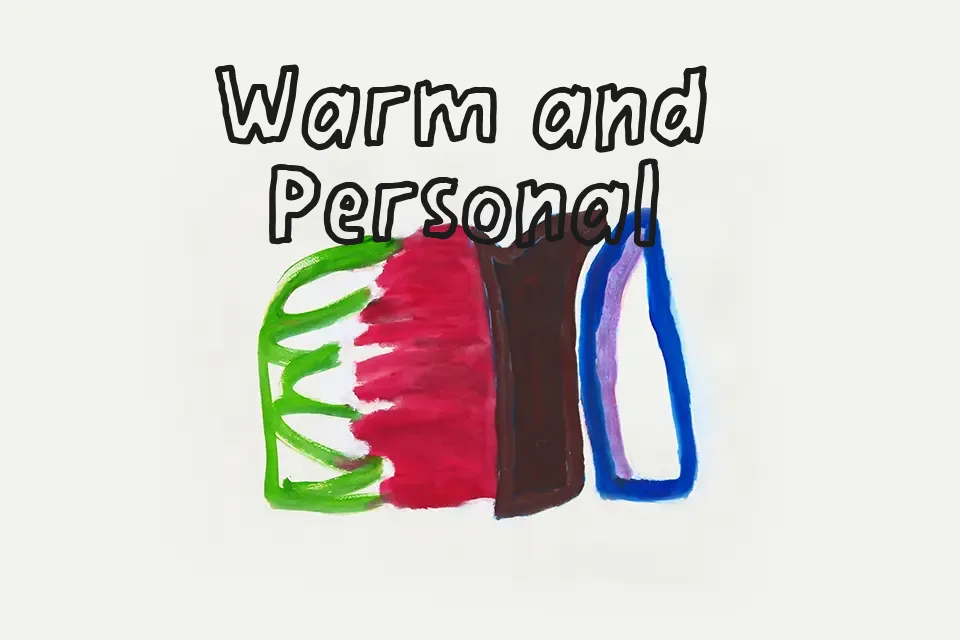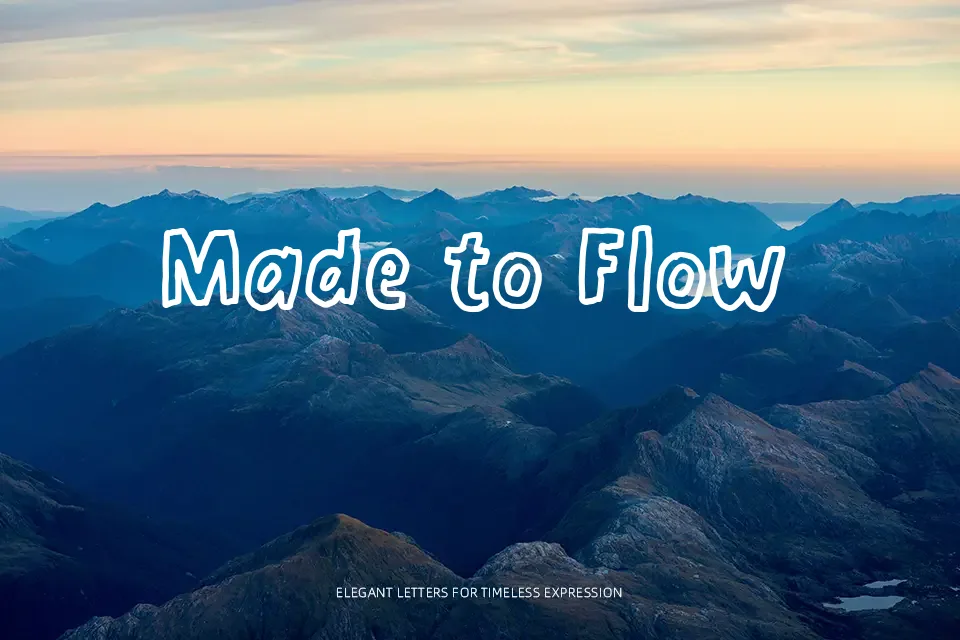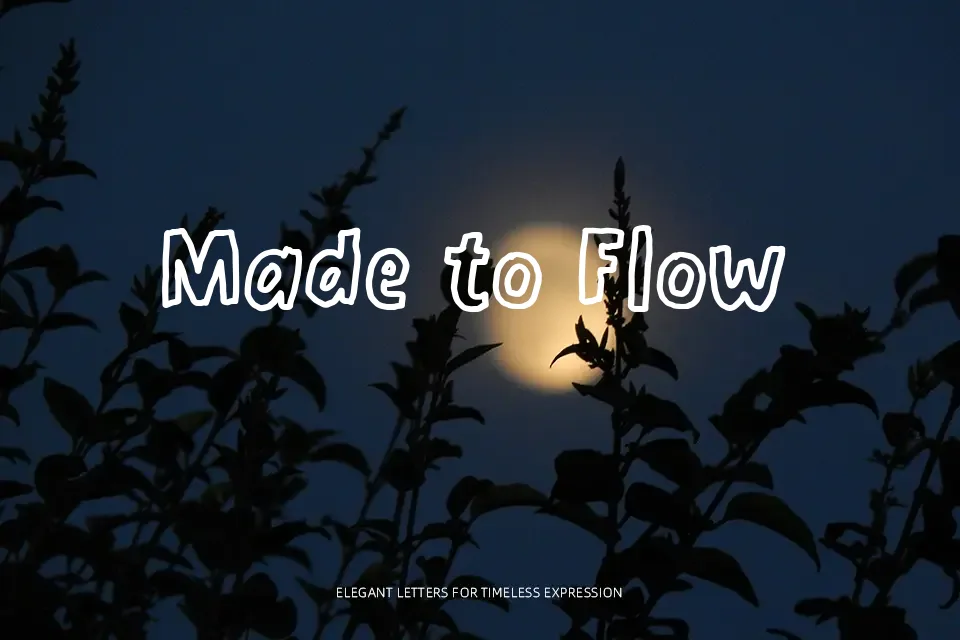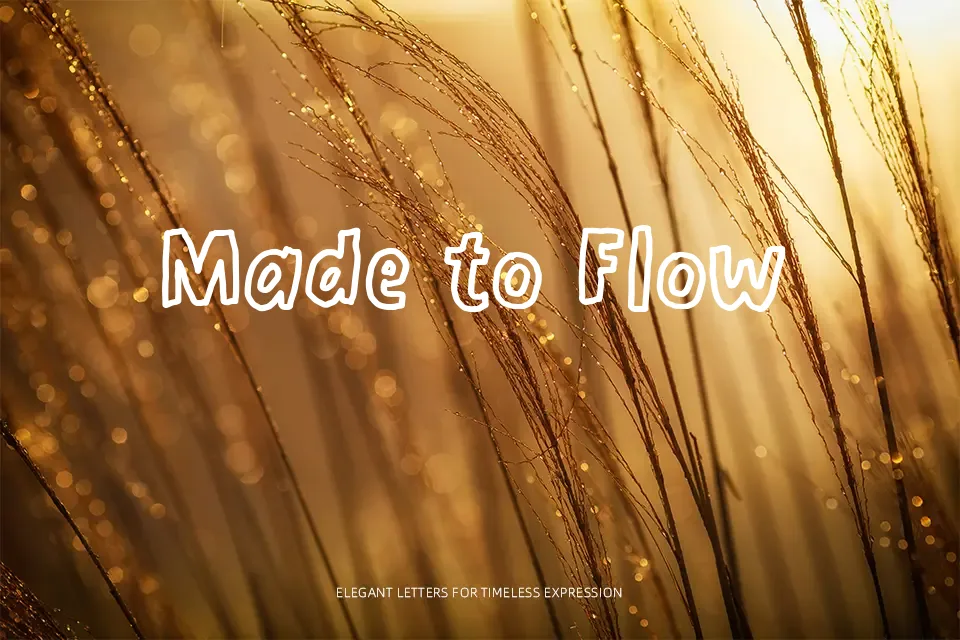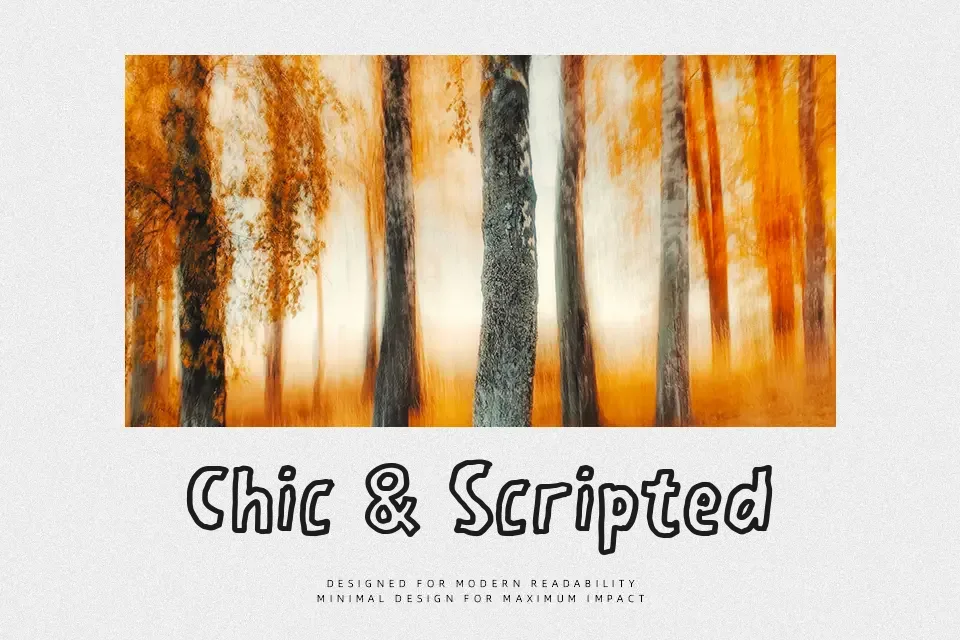
ATP Lazy Daze Font
Designed by Thufail Al Ghifary
There’s a looseness to ATP Lazy Daze that you don’t get from polished script fonts — the strokes feel genuinely drawn, not engineered. Letters carry visible irregularity in weight and baseline, giving headlines a casual, lived-in quality that suits moodboards, handmade goods packaging, and lifestyle brand headers well. The spacing leans open, which helps readability at display sizes but starts to fall apart at smaller scales. For typographers used to tightly constructed scripts, the intentional imperfection here may feel too untamed for contexts requiring refinement. It works best when the design calls for warmth over formality — think journaling-themed social media graphics or cottage-style product tags, not corporate pitch decks. Licensed for personal use, so commercial projects require clarification before deployment.
Best For:- Lifestyle brand social media headers
– Handmade product labels and packaging
– Personal journal or stationery design
– Casual wedding mood board titles
Not Ideal For:- Body text or anything set below 18pt
– Corporate or legal documents
– Multilingual text requiring extended character sets
– High-precision branding requiring consistent letterform geometry
Perfect for branding, invitation, and packaging, with a friendly and handwritten style.